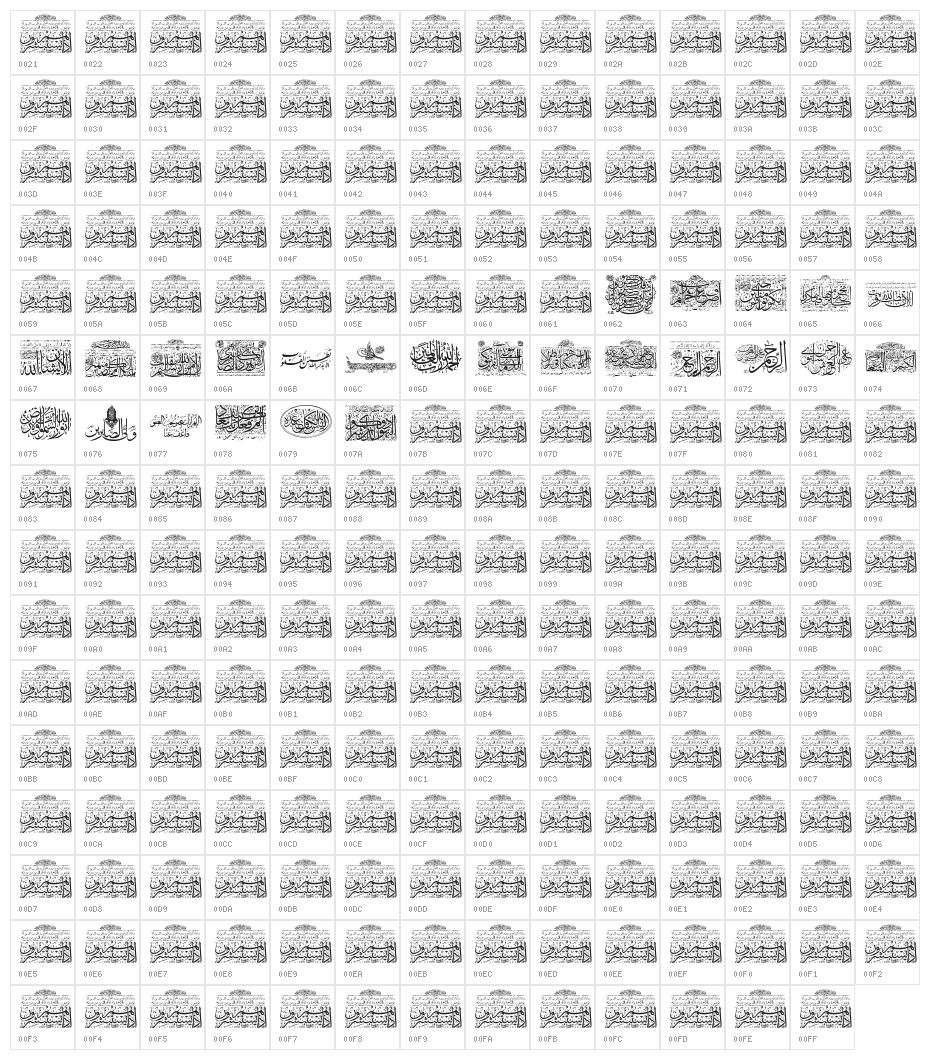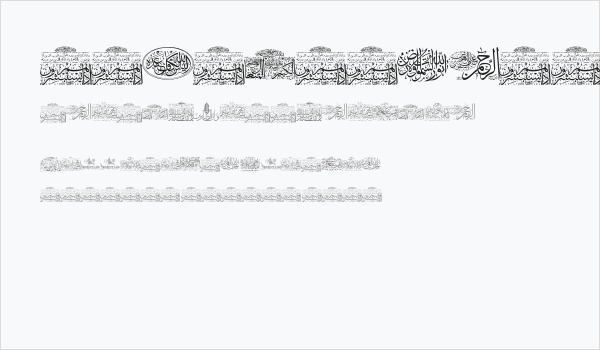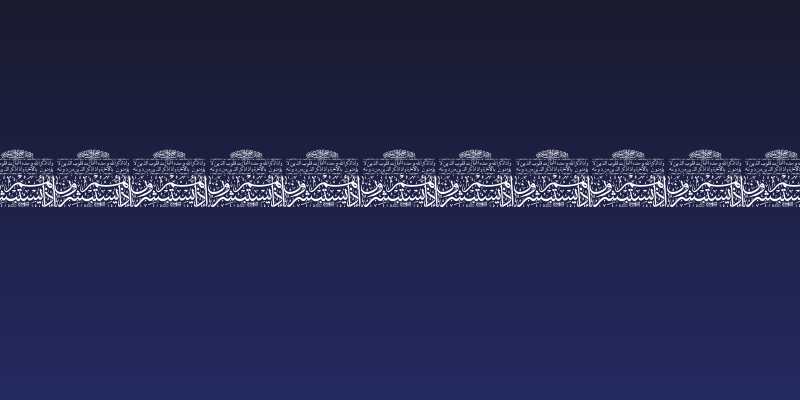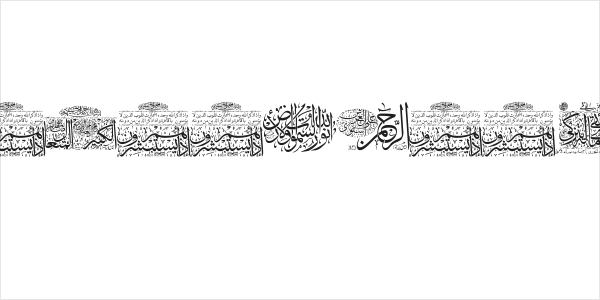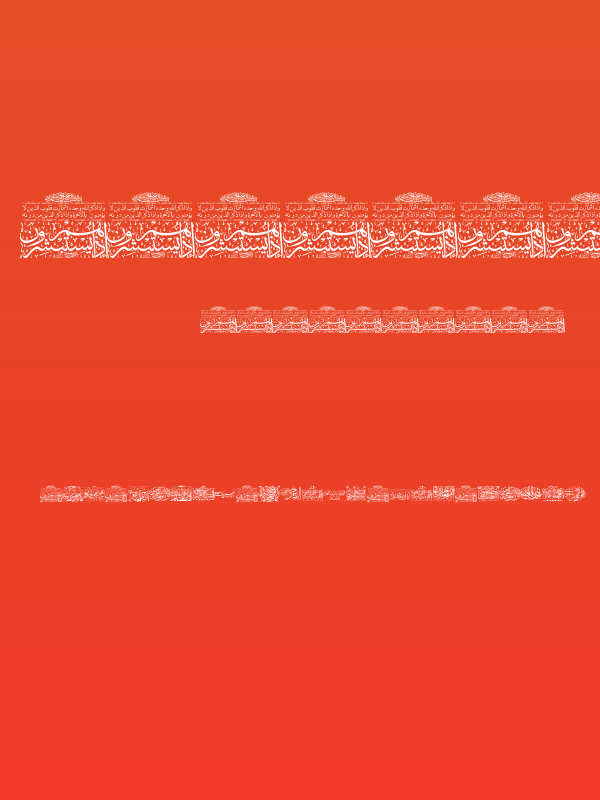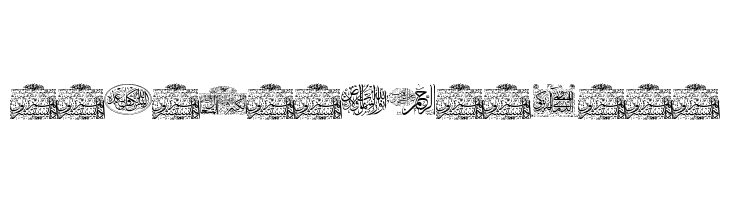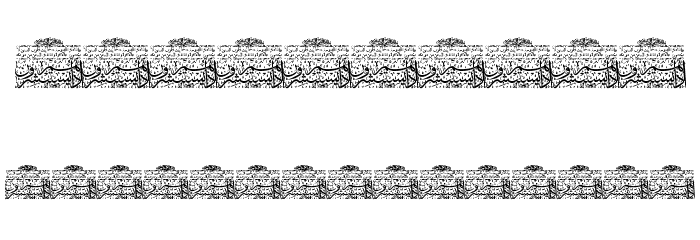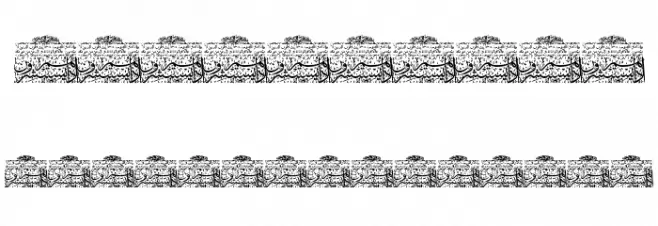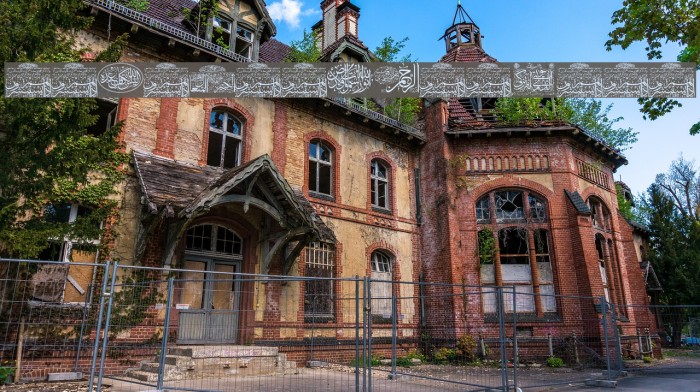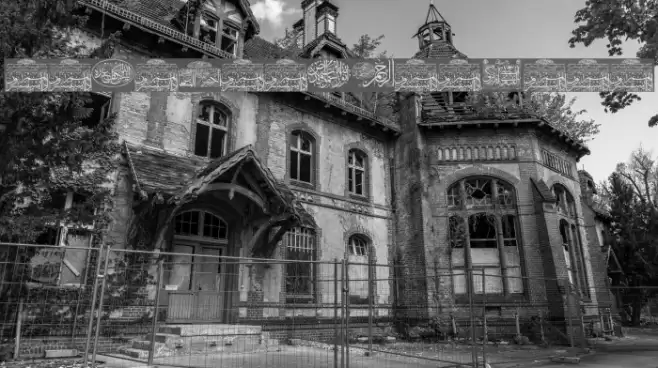
Aayat Quraan 22 Font
Aayat Quraan 22 Description
This script is a traditional Arabic calligraphy style, characterized by its intricate and flowing design. The letters are elegantly connected, with a high level of detail and ornamentation that reflects a deep cultural heritage. The script is visually complex, with varying line thicknesses that create a dynamic and rhythmic appearance. The characters are closely spaced, enhancing the cohesive look of the text. This style is often used in religious and ceremonial contexts, emphasizing its importance and reverence.
| Overall Style | Traditional |
| Use Case | Religious texts, Ceremonial documents |
| Proposed Projects | Ideal for religious texts, ceremonial documents, and cultural art pieces. |